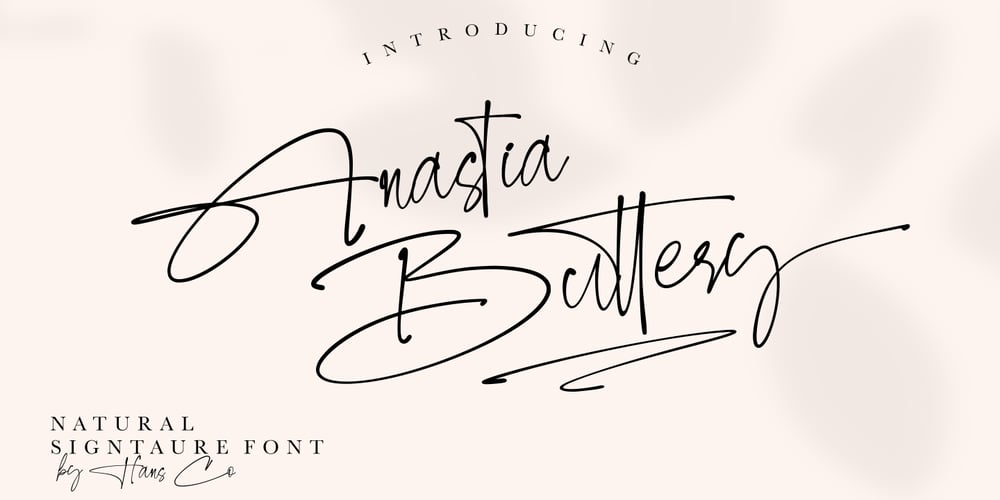
Anastia Buttery Font Family was designed by Burhan Afif and published by HansCo. Anastia Buttery contains 2 styles and family package options. Anastia Buttery is an elegant handwritten font with a unique that look clean and modern. This font come with unique ligature style that give you a sleek, elegant look for your logos, business card, wedding invitations, quotes, advertisements, and more. Let’s create something beautiful today with this.Tutorial how to Install & use Alternate / Special Character : https://hanscostudio.com/tutorial/Enjoy!